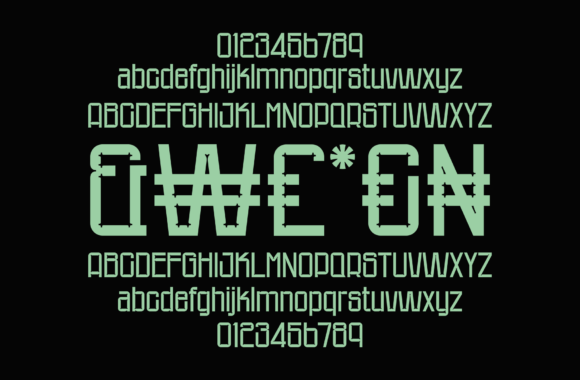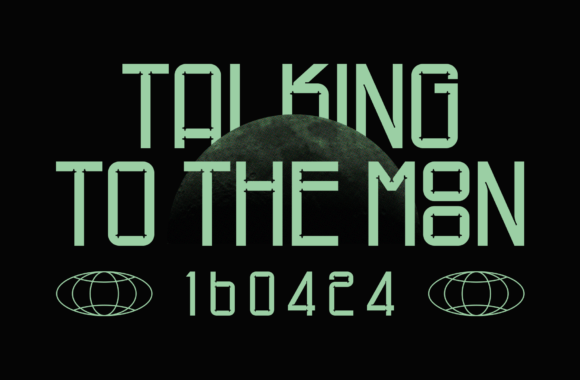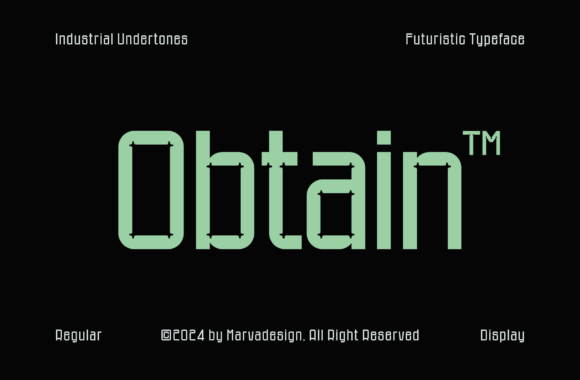
Obtain Font
Designer: marvadesign
Obtain Font is a sleek and modern sans serif font that embodies minimalism with a touch of futuristic elegance. This font is designed to provide a clean, sharp appearance while maintaining readability and style. The condensed letterforms allow for more text to fit in limited spaces, making it ideal for headlines, posters, and tight layouts. With its contemporary lines and geometric shapes, this font is perfect for tech-related content, branding, and innovative design projects. The minimalist approach ensures that each letter is streamlined and uncluttered, contributing to a sophisticated and professional look.